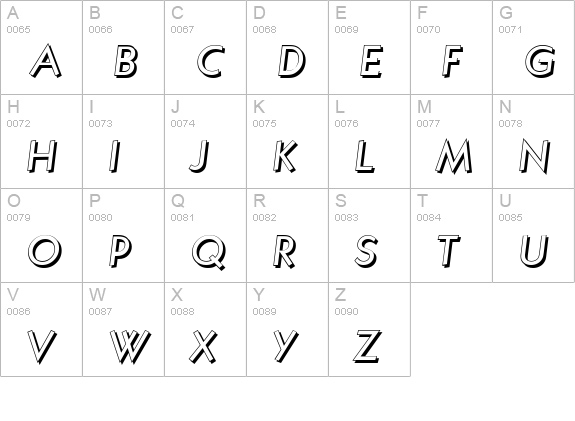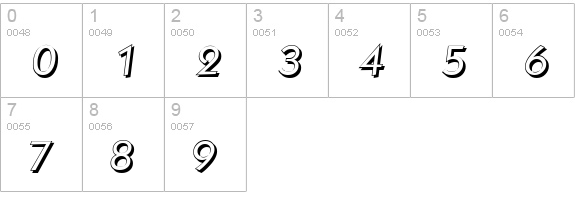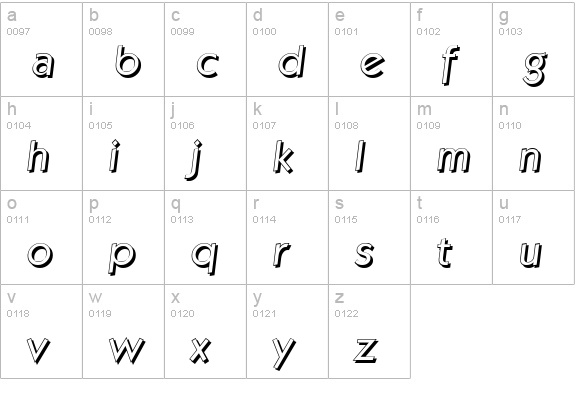
KoblenzShadow-Italic is a distinctive, italic variant in the KoblenzShadow typeface family \xE2\x80\x94 well suited to design and typography projects.
KoblenzShadow-Italic font is a unique and elegant typeface that exudes a sense of mystery and sophistication. With its slanted design and delicate shadow effect, this font adds a touch of drama to any project. The cursive style of the letters gives a flowing and elegant look, perfect for adding a touch of flair to your designs. What sets KoblenzShadow-Italic font apart is that it is available for free download at FontsMarket.com. This means that you can easily access this stylish font without any cost, making it a valuable addition to your font collection. Whether you're working on a branding project, invitation design, or any other creative endeavor, KoblenzShadow-Italic font is sure to make a statement with its unique style and visual impact. Download it today and elevate your designs with this exquisite typeface.